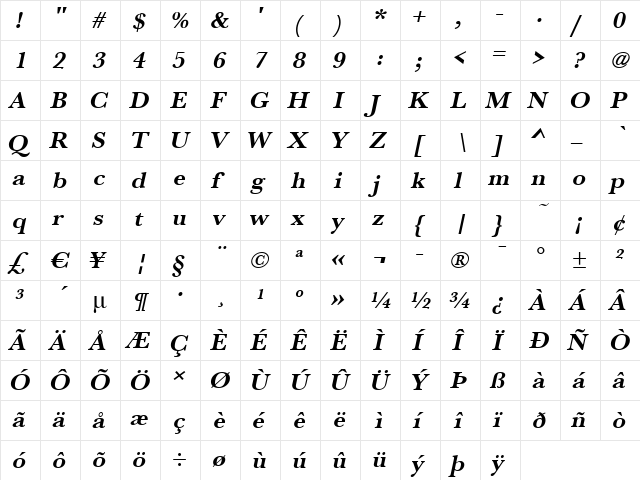
RoxanneBeckerWide Bold Italic
Design Context for RoxanneBeckerWide Typeface
RoxanneBeckerWide offers clean, dependable letterforms without strong stylistic allegiance, making it a practical choice for designers who need flexibility. Its italic angle brings a sense of urgency and motion to the letterforms. The heavy weight commands attention and anchors typographic hierarchies.
Pro Tip: Use RoxanneBeckerWide for emphasis, pull quotes, and subheadings where its slanted energy can add rhythm to the layout.